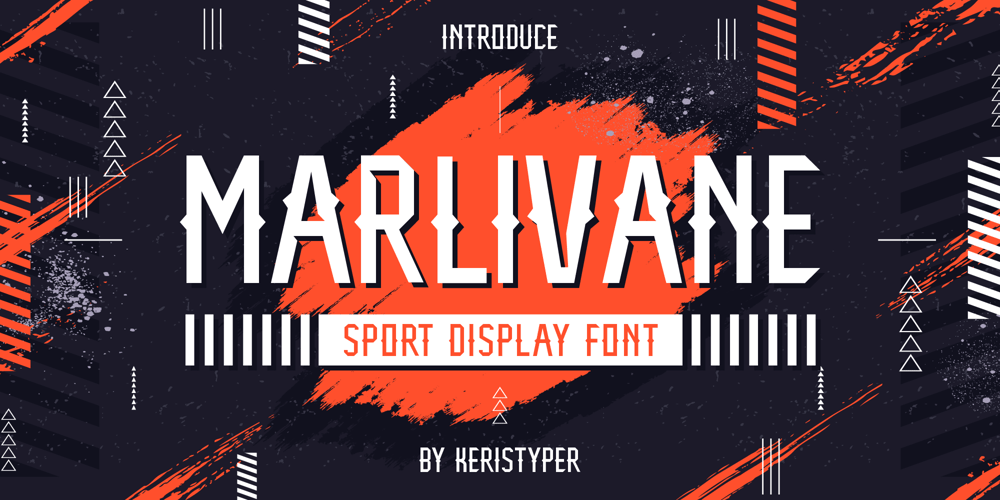
Marlivane Font Family was designed by Tezar Tantular and published by Keristyper Studio. Marlivane contains 1 styles and family package options. Marlivane has a strong characteristic sports display font that is suitable for Esports or sports activity. This font is good for logo design, Social media, Movie Titles, Books Titles, short text even long text letters, and good for your secondary text font with sans or serif.Featured: Standard Uppercase & Lowercase Numeral & Punctuation Multilingual : ä ö ü Ä Ö Ü ß ¿ ¡ Alternate & Ligature PUA encoded We recommend programs that support the OpenType feature and the Glyphs panel such as Adobe applications or Corel Draw. so you can use all the variations of the glyphs.Hope you enjoy our fonts!